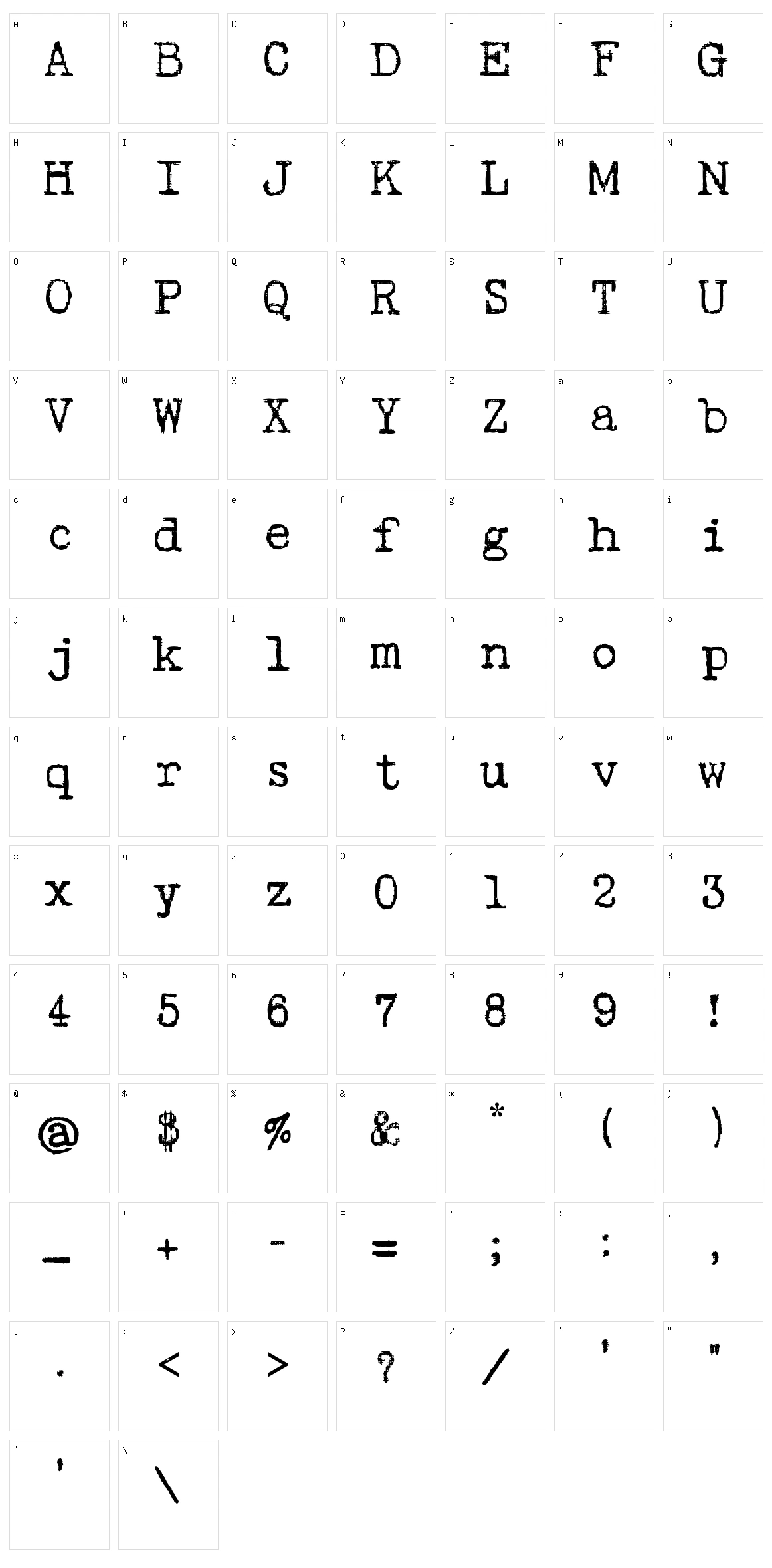
The free font Psacstroj is carefully designed by Miloš Kunst, showcasing a thoughtful balance of creativity and usability and falls under the Typewriter font style. When you download the ZIP file, it contains only 89.72 KB of font files, making it lightweight and quick to download. Please review the license details below to understand permitted usage and distribution rights. If license information is not available, we recommend using this font for personal projects only or contacting the author directly for commercial usage permissions.